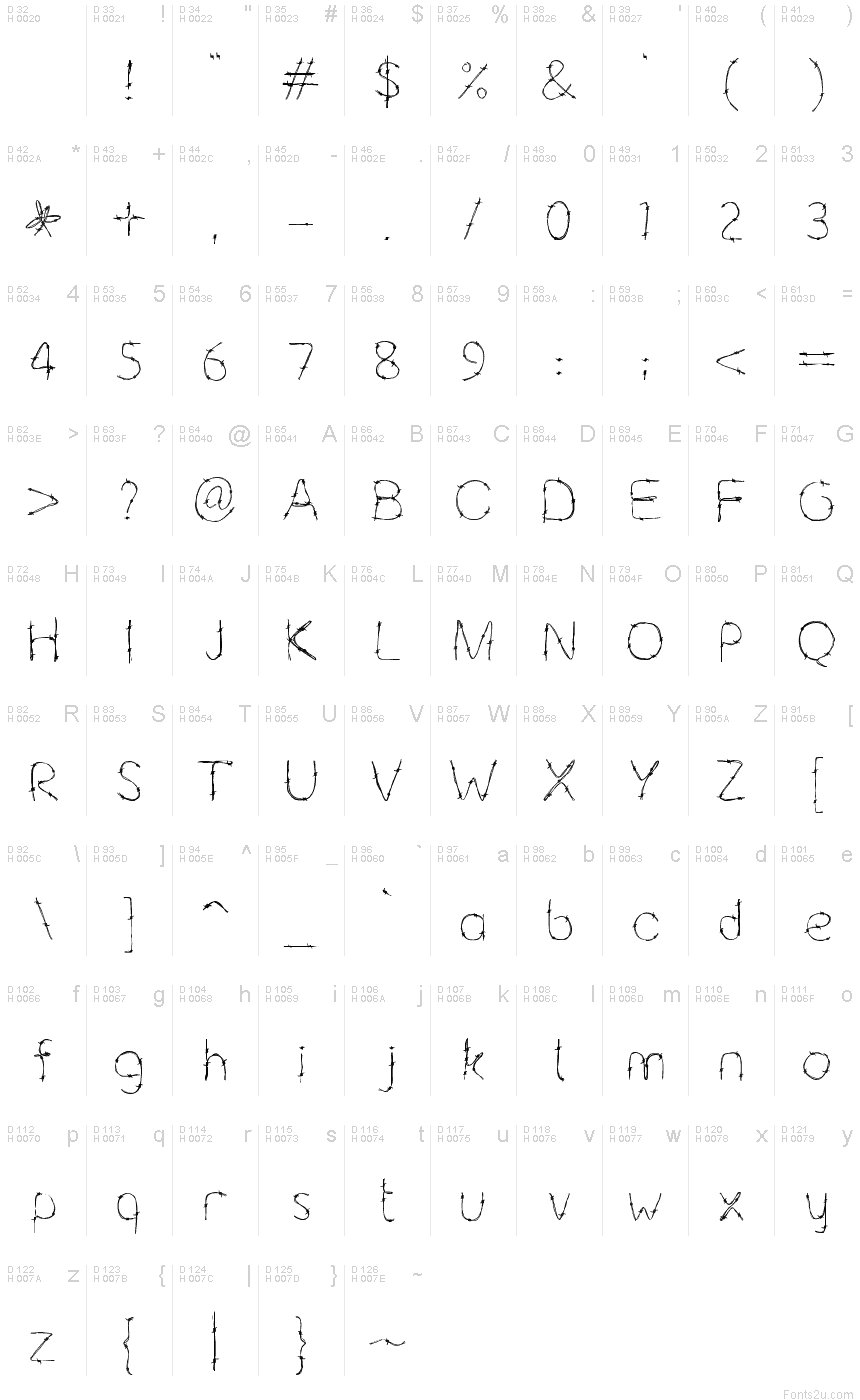
Barbaric 2B Reg
Barbaric 2B Reg font by Aeryn is a free scary typeface that twists every letter into wiry strands of barbed wire. The thin, scratchy strokes and sharp hooks feel tense and abrasive, like something you shouldn’t touch with bare hands. Sitting within the Barbaric family, it has a spiky, hand-drawn roughness that instantly pushes your layout into horror, thriller, or dystopian territory.
This free font shines on horror posters, metal or punk band logos, Halloween flyers, game titles, and dark book covers. Using Barbaric 2B Reg at larger sizes lets every barb and snag read clearly, while pairing it with a clean, neutral sans serif for body copy keeps the chaos focused where it counts.